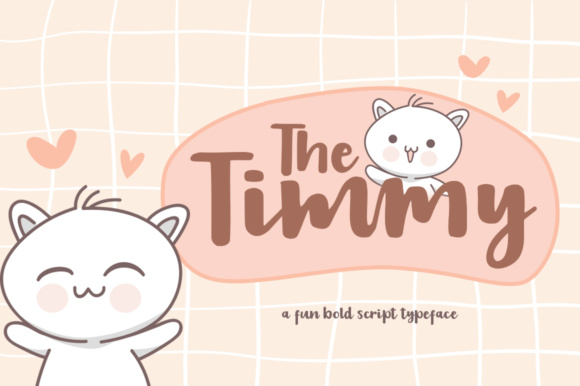
Journey into the world of The Timmy Font, a captivating script typeface designed to infuse your creative endeavors with a burst of cheerfulness and charm. This meticulously crafted font, brought to life by the esteemed Khurasan, possesses an alluring personality that dances across your designs with playful elegance.
Step into a realm where letters come alive, embodying the essence of joy and warmth. The Timmy Font's lively baseline and handwritten aesthetic lend an enchanting touch of human connection to your projects, inviting viewers to embark on an emotional journey. Embrace the spirit of individuality and let your words take on a life of their own, captivating audiences with their playful charm.
Picture your designs adorned with The Timmy Font's graceful curves, each character a captivating dance of ink. Whether you're crafting heartfelt invitations, enchanting social media posts, or captivating logos, this font breathes life into your words, transforming them into visual masterpieces. With its innate ability to evoke happiness and optimism, The Timmy Font becomes the perfect companion for any project seeking to spread joy and positivity.
Dive into a world of endless creative possibilities, where The Timmy Font effortlessly adapts to your every need. Its versatile nature shines through, whether you're designing logos, branding materials, or simply adding a touch of whimsy to your personal projects. Let your imagination run wild as you explore the font's capabilities, discovering new ways to captivate and engage your audience.
The Timmy Font is more than just a collection of letters; it's an expression of your unique personality and style. Embrace the boundless creativity it offers, and let your designs bloom with joy and exuberance. Join the countless others who have succumbed to The Timmy Font's allure, and watch as your projects take on a life of their own.